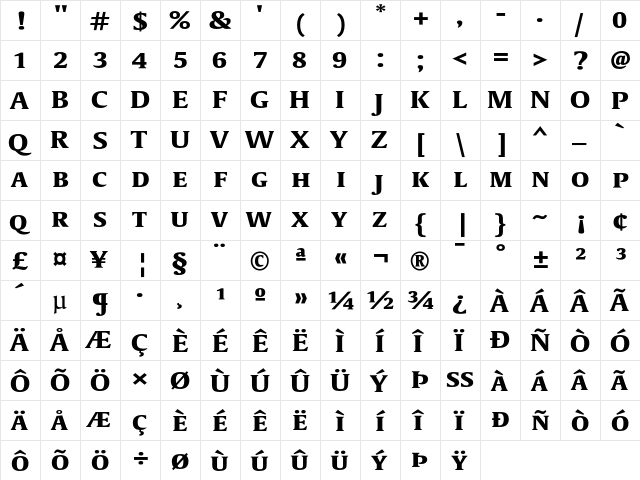
GulliverCompactSC Bold
Design Context for GulliverCompactSC Typeface
GulliverCompactSC is a composed and adaptable typeface that performs quietly and consistently across a wide range of design contexts. Its bold stroke weight gives it real presence on the page. The condensed width makes it efficient for tight spaces without sacrificing legibility.